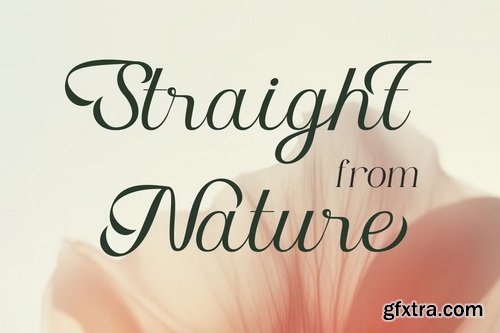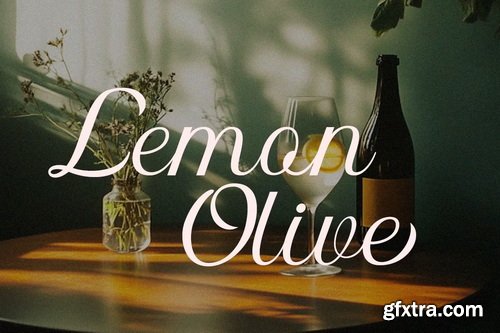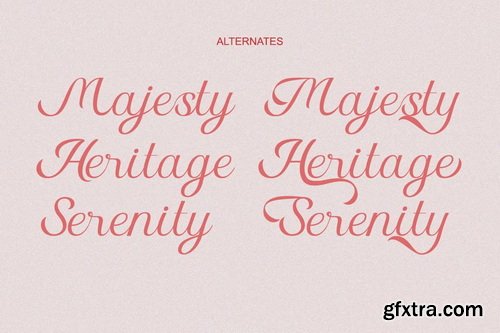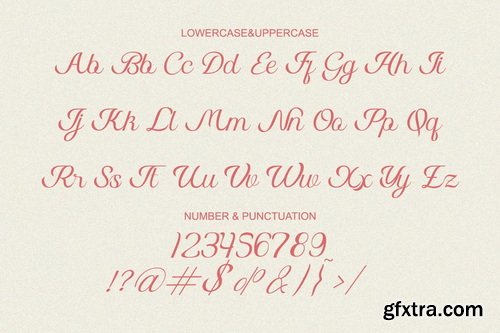
CreativeMarket - Kalita - Modern Elegant Script Font
Kalita is a beautifully crafted modern script font that exudes effortless elegance and contemporary charm. Featuring stylistic alternates and fluid ligatures, this typeface is perfect for creating luxurious branding, feminine logos, premium packaging, and editorial designs with a touch of refined sophistication. With its smooth, flowing strokes and graceful character variations, Kalita offers unmatched versatility for brands seeking both sophistication and personality. The carefully designed alternates allow for custom typographic expressions that feel both polished and personal.